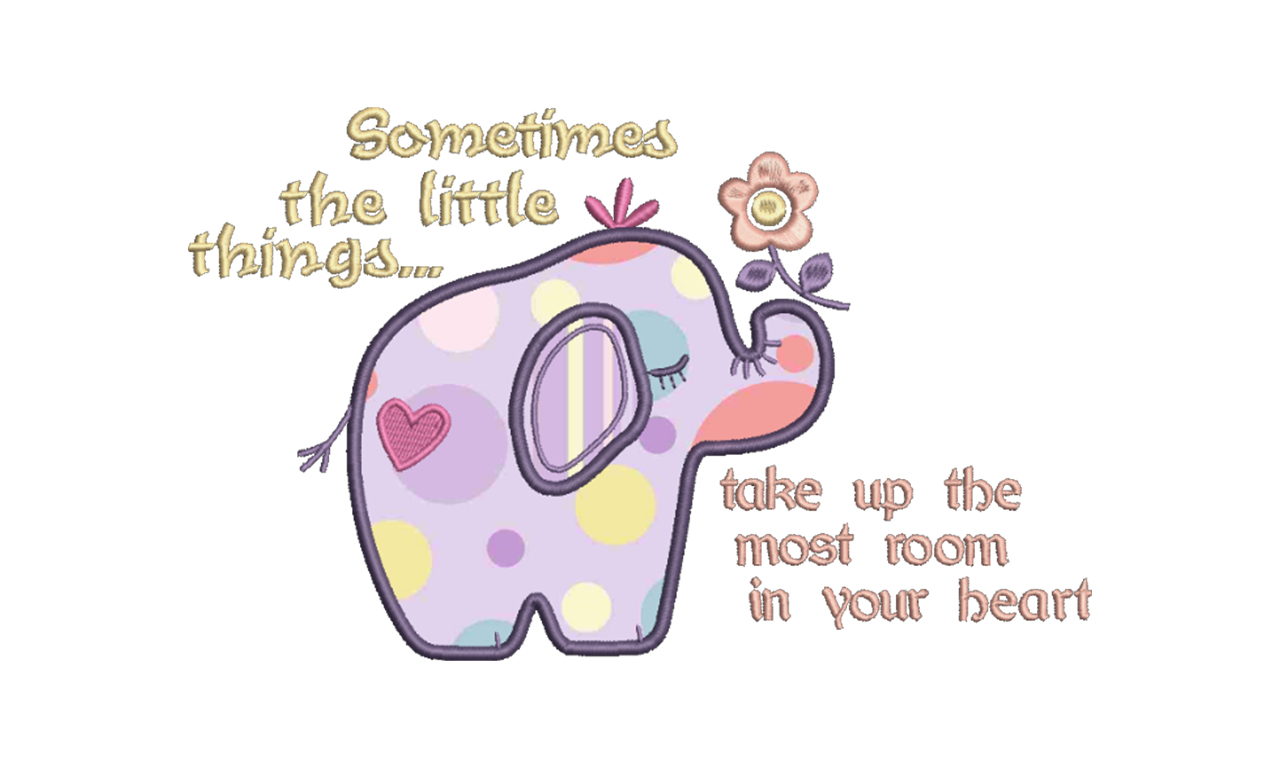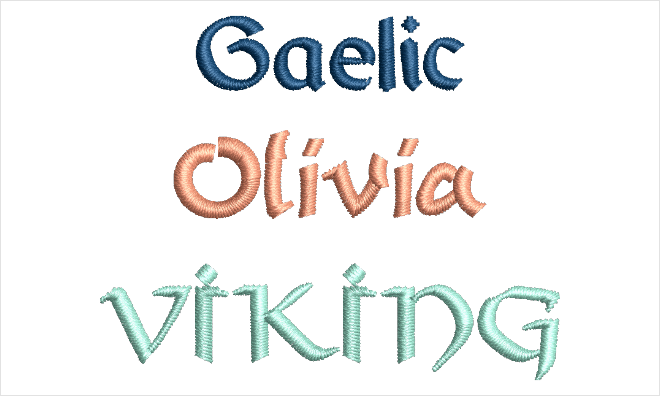
While these fonts have “medieval times” written all over them, you’ll find yourself using them in many projects. They work great for that classical Irish project, to give you a handwritten look, or decorative sharp corners.